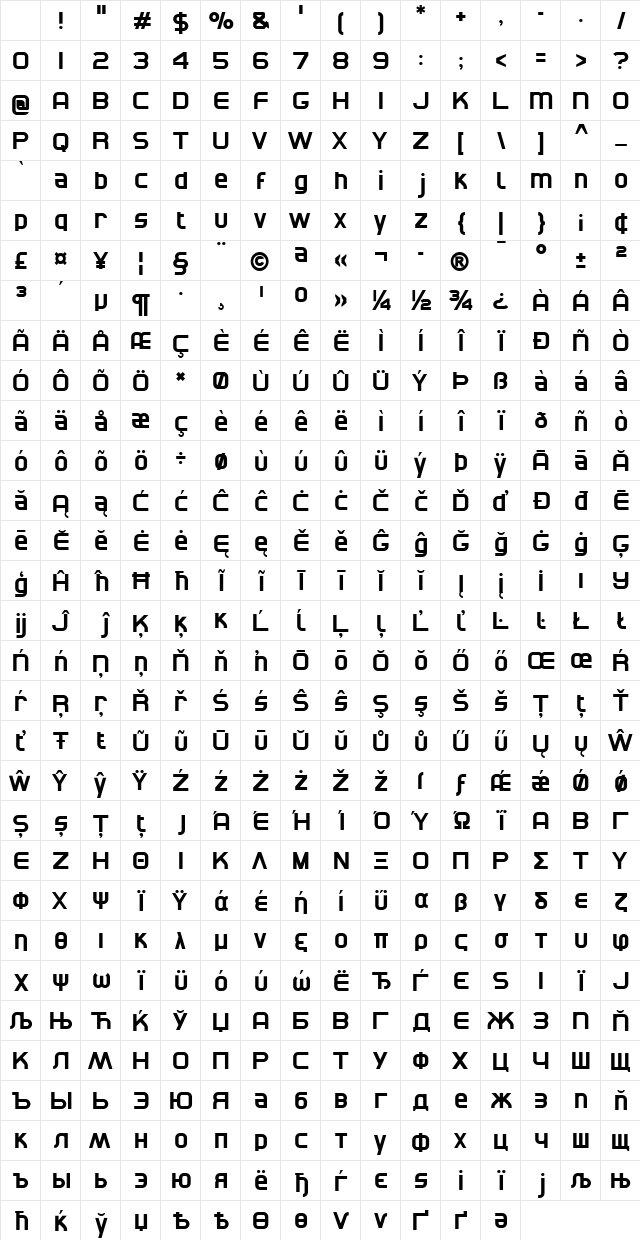
Complete CAT North Regular glyph index. Displaying only characters natively supported by CAT North Regular font.
CAT North is a composed and adaptable typeface that performs quietly and consistently across a wide range of design contexts.